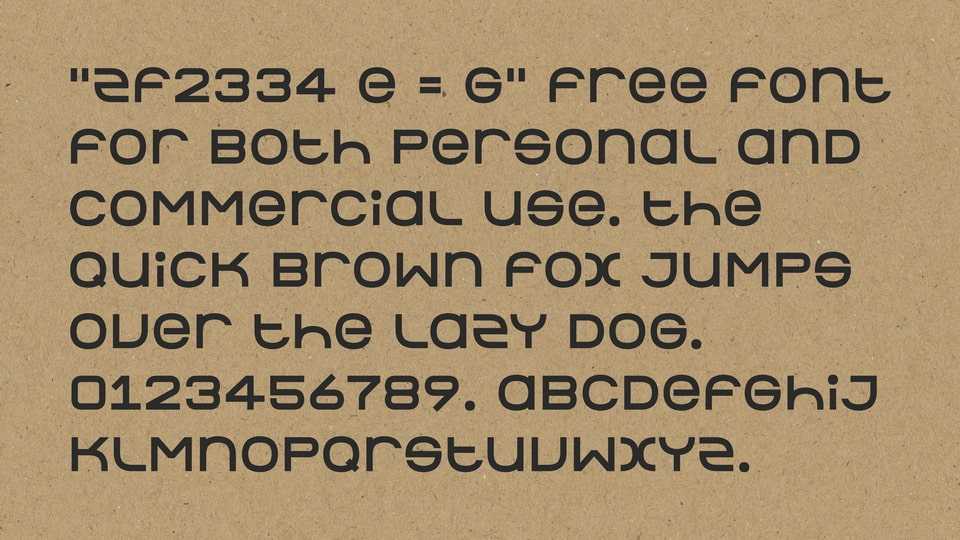
Download ZF2334 E=G font, a futuristic and experimental sans-serif typeface with a distinctive rounded geometry and playful letterforms. This font exudes a retro-futuristic charm, reminiscent of sci-fi aesthetics and digital interfaces.